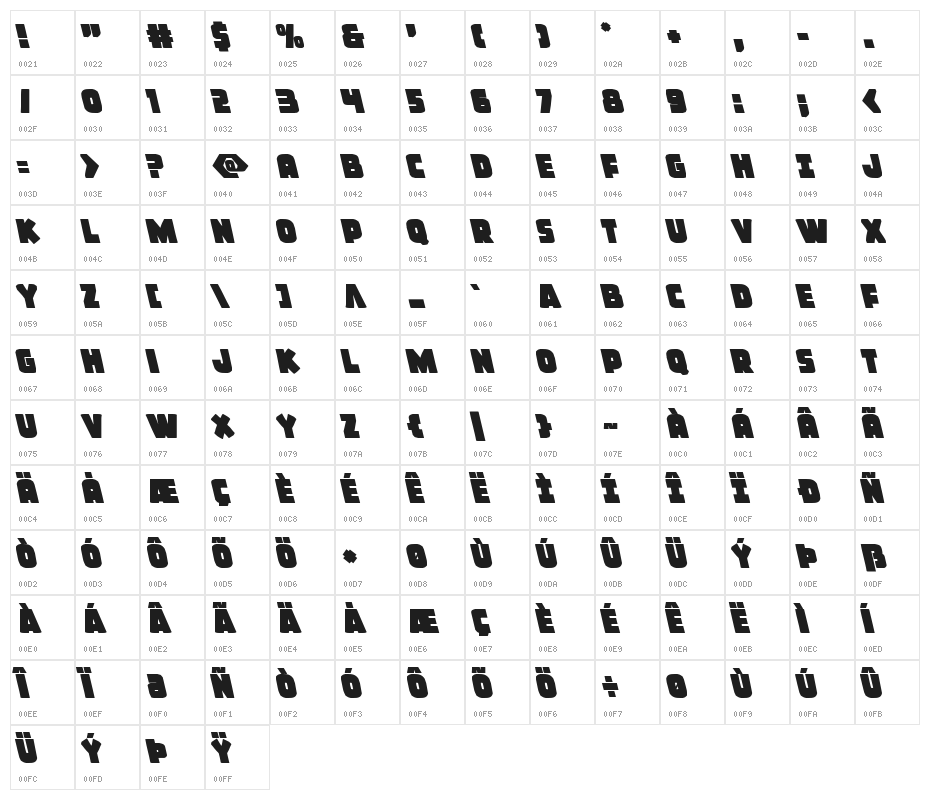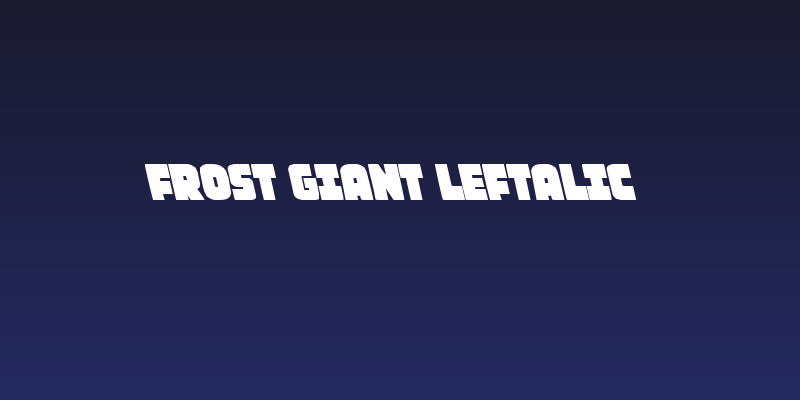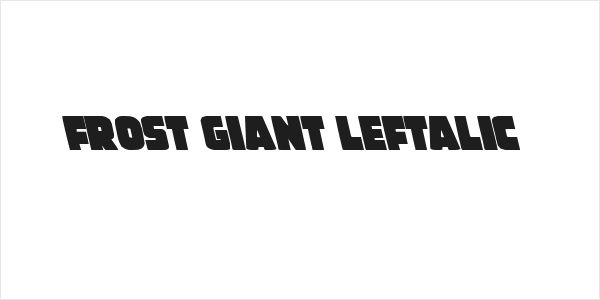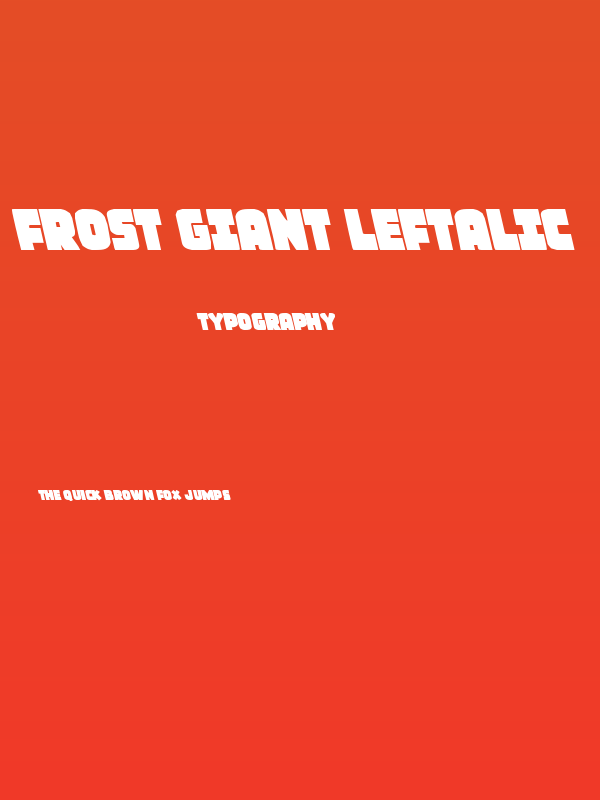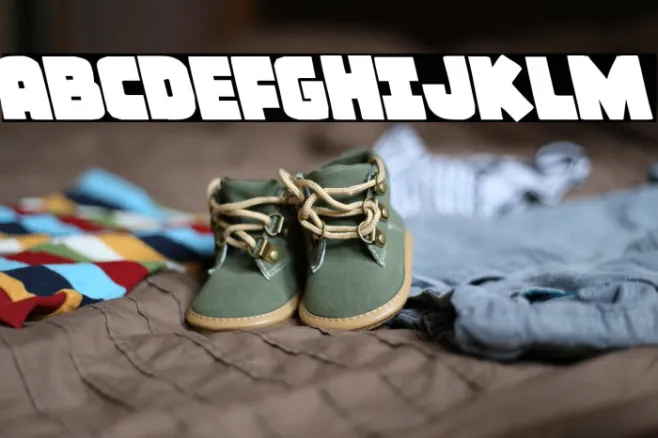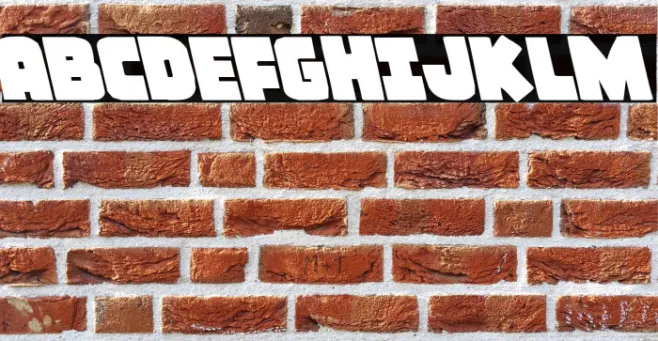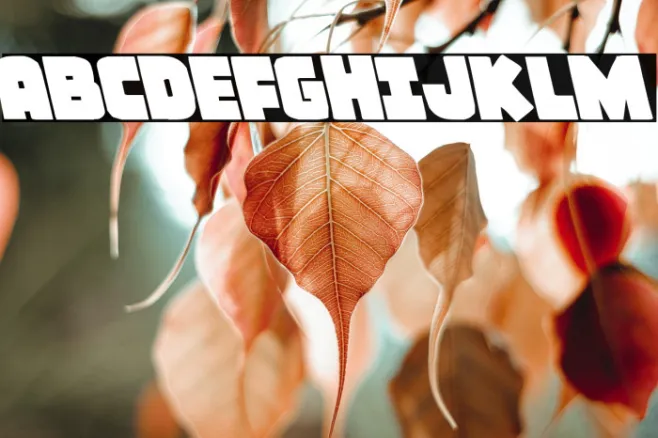
Frost Giant Leftalic Font
Frost Giant Leftalic Description
This bold and striking font features a heavy, block-like appearance with a distinct slant to the left, giving it a dynamic and powerful look. The characters are wide and robust, with minimal spacing between them, creating a compact and impactful visual effect. The font's thick strokes and angular edges contribute to its commanding presence, making it ideal for attention-grabbing headlines and designs that require a strong visual impact. The numbers and special characters maintain the same bold style, ensuring consistency across all elements.
| Proposed Projects | Ideal for posters, logos, and branding materials that require a bold and dynamic style. |